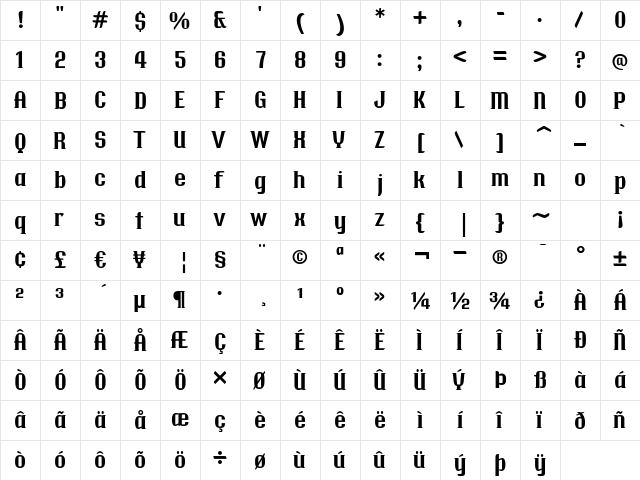
TangientSerifGD Regular
Design Context for TangientSerifGD Typeface
TangientSerifGD carries the refined structure of traditional serif typography, with bracketed terminals and considered proportions that communicate credibility and craft.